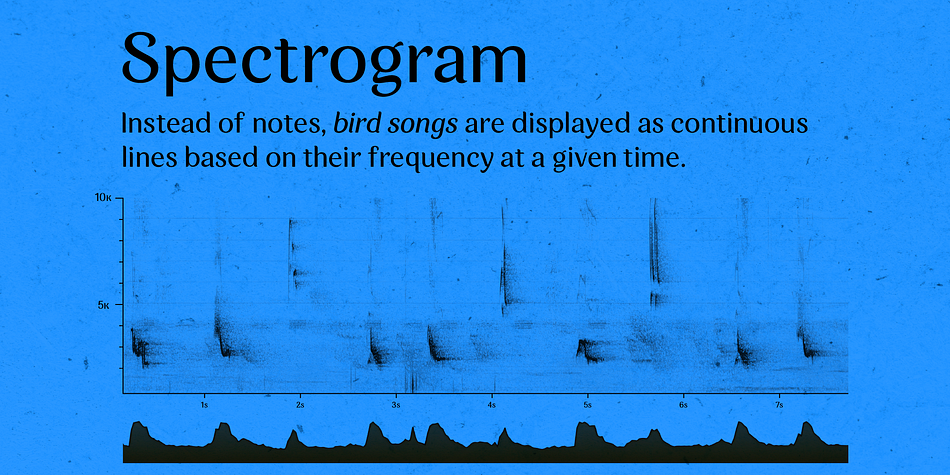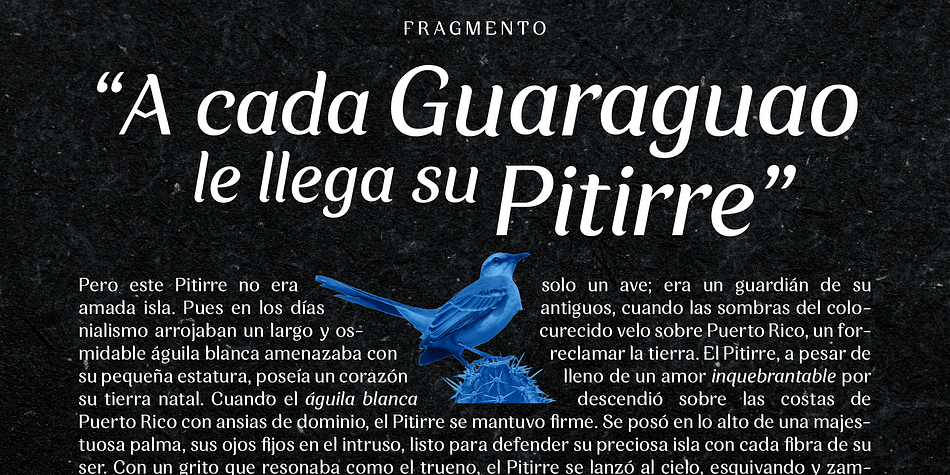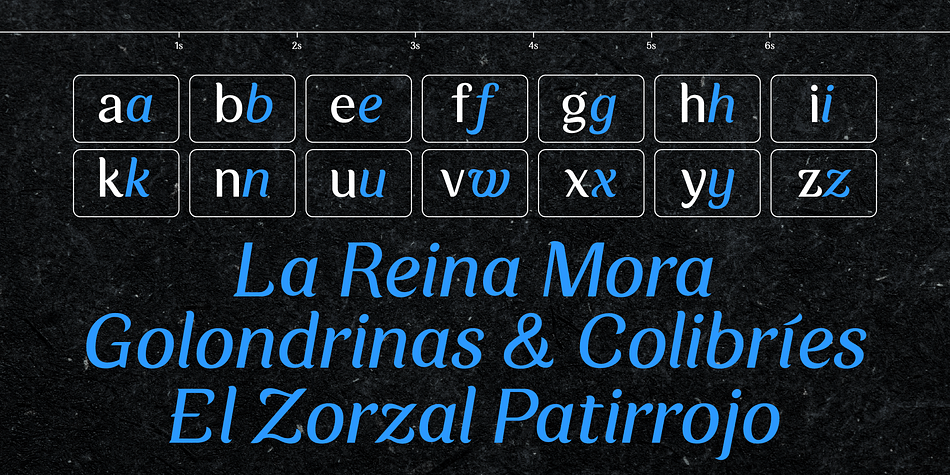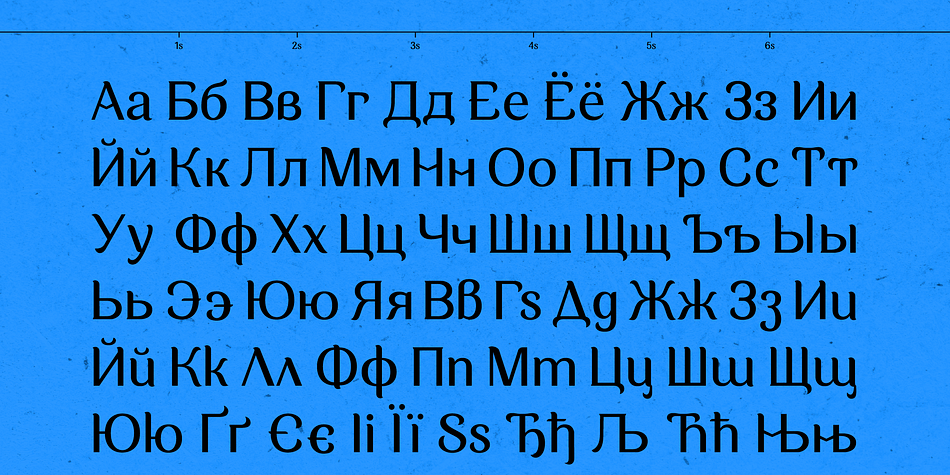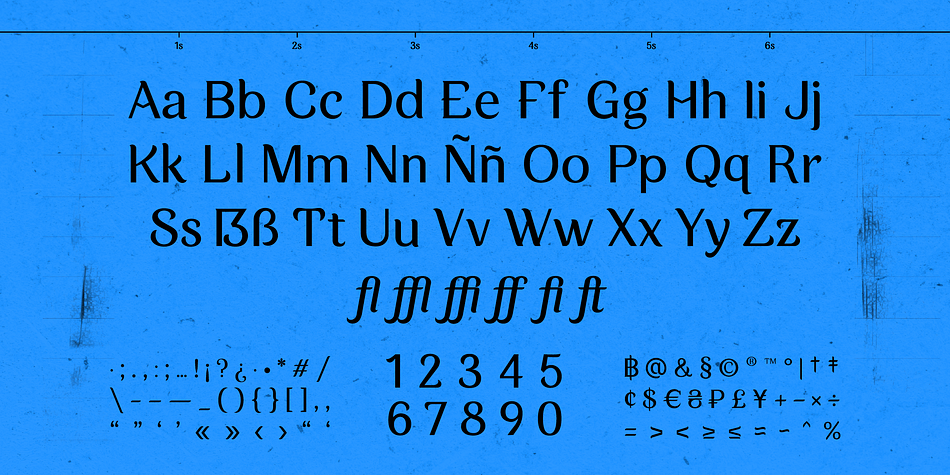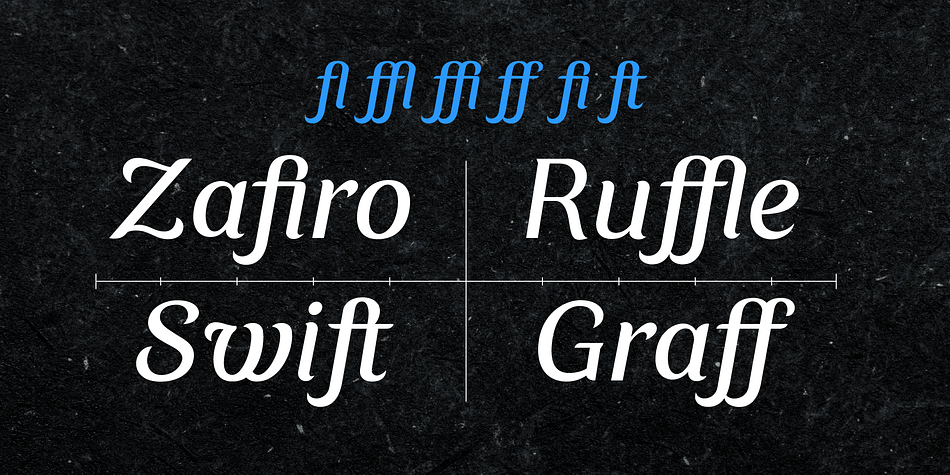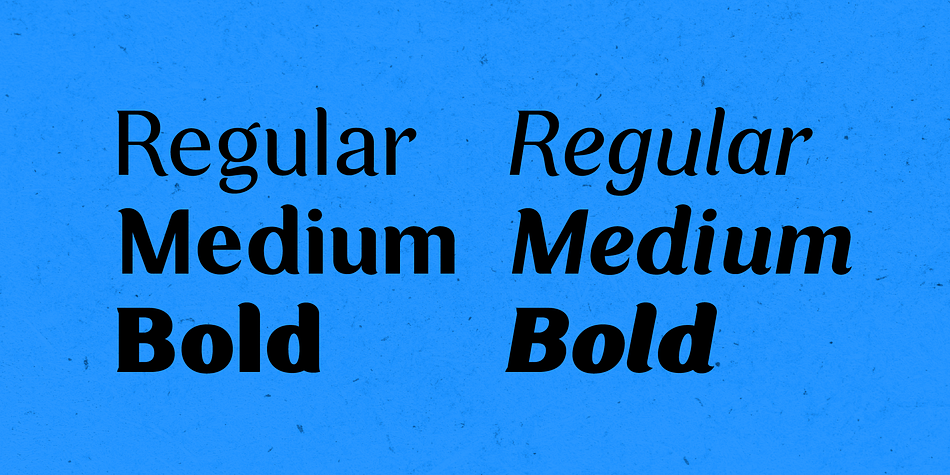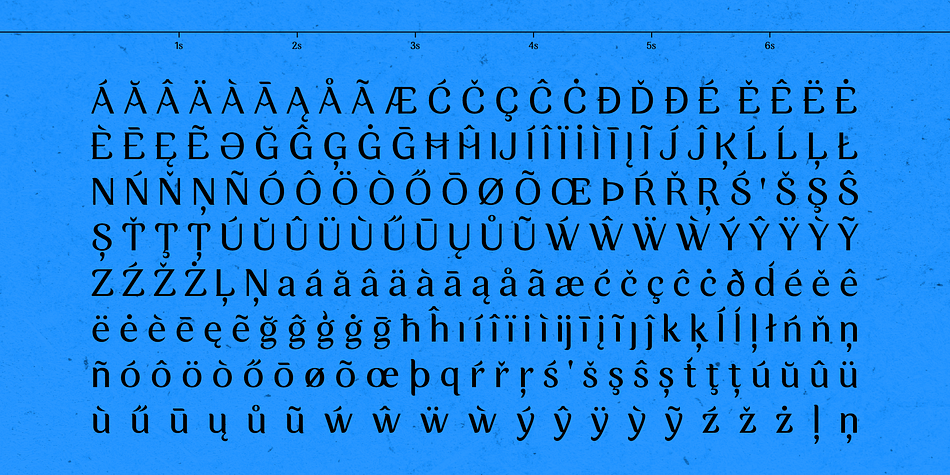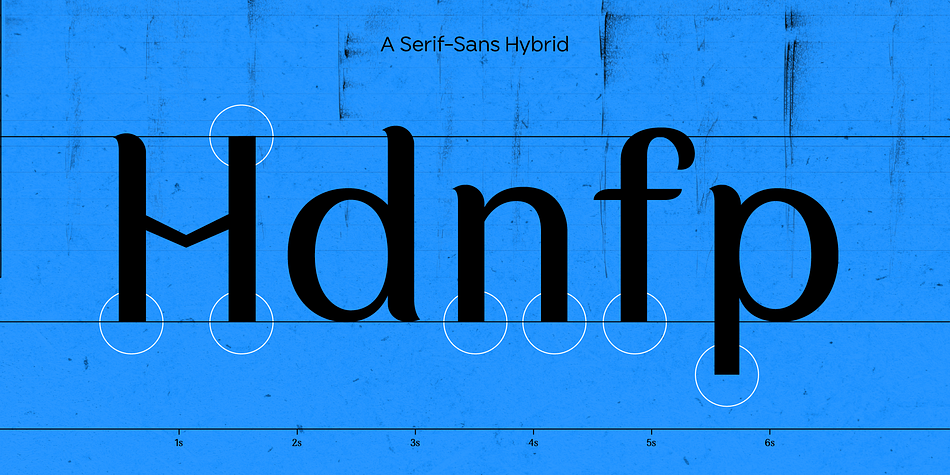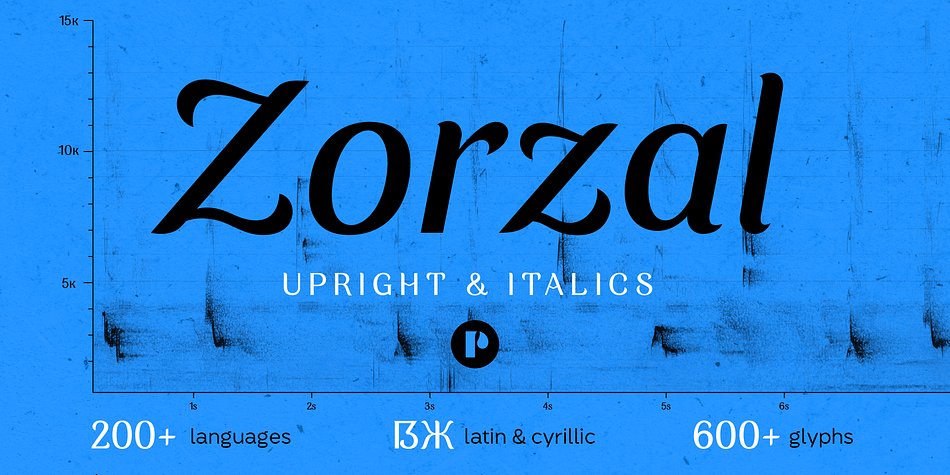
Zorzal
Designed by Pedro Leandry, Zorzal is a display font family. This typeface has six styles and was published by Pedroglifos.
Originally, named Nimba, this typeface was my first venture into crafting true italic characters back in 2022. Initially, it was meant to be a serif font, but as I put more and more hours of work into it, this typeface took on a life of its own, evolving into something unexpected. As James Edmonson aptly puts it: ‘Sometimes you gotta let the font tell you where it wants to go.’ As the project progressed, the serifs gradually diminished until they disappeared entirely, replaced by subtle, graceful flourishes reminiscent of calligraphic strokes. A year later, Zorzal emerged —a font that seamlessly blends into the page like a swift bird darting across the sky, disappearing into screen or paper. Every letter is carefully crafted to harmonize with the next, forming a cohesive flock that gracefully navigates through paragraphs. If you’re seeking a font that combines the readability of a sans serif with a vibrant touch of personality, Zorzal is the bird you’ll want to welcome into your creative arsenal!
Technically speaking, Zorzal is a text oriented typeface, but it can organically adapt for display and branding as well. The large counters, open bowls and brushed terminals, make it legible is most scenarios. Although it has decent contrast, it’s optically adjusted from small sizes. From the aesthetic aspect, Zorzal features a broken crossbar in A, and H, reminiscent of art nouveau and non-conforming activism from 1960’s. While itl appears traditional at first glance, a closer inspection reveals it breaks from the norm in many ways, taking on a fantastical appearance. Zorzal is ideal for projects that may want to showcase an elegant approach without leaving behind modern takes like the flat stem and strokes usually found in sans serifs. With its over 600 glyphs, the family support most roman alphabet languages, and many Cyrillic scripts such a Russian, Serbian, Macedonian, Bulgarian, and Ukrainian. They all feature their respective true italic letter forms.